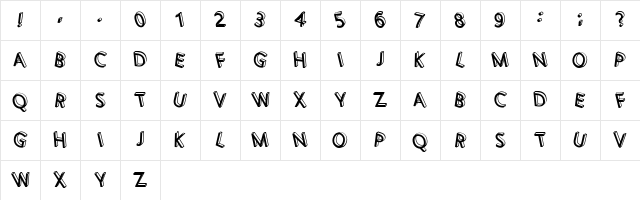
3D Letters Shadow Inverted Regular Free Font
3D Letters Shadow Inverted Regular
Complete 3D Letters Shadow Inverted Regular glyph index. Displaying only characters natively supported by 3D Letters Shadow Inverted Regular font.
Design Context for 3D Letters Shadow Inverted
3D Letters Shadow Inverted is built around its visual character rather than neutral utility - its distinctive forms are designed to make an impression at display sizes.
Font Pairing: Pair with a clean neutral sans-serif for body copy to let 3D Letters Shadow Inverted's character lead without overwhelming the composition.
Pro Tip: Use 3D Letters Shadow Inverted exclusively at display sizes - it was designed to be seen, not read at length. Let a neutral companion handle body copy.